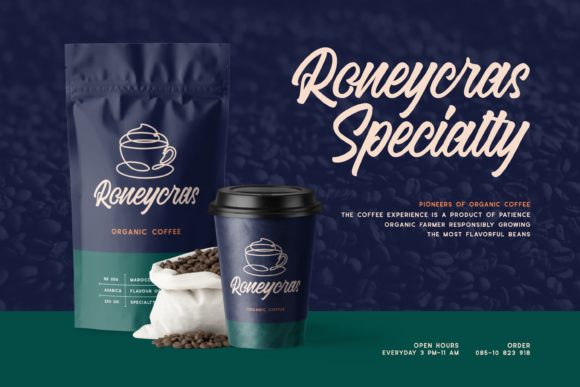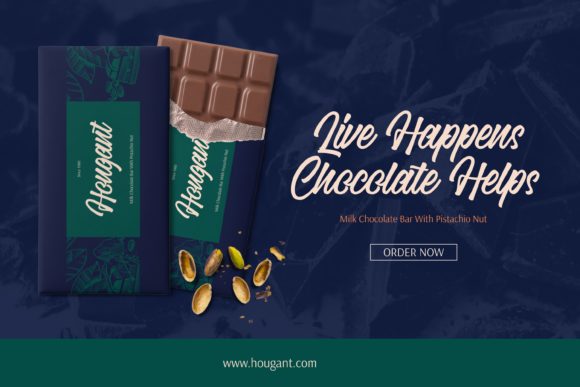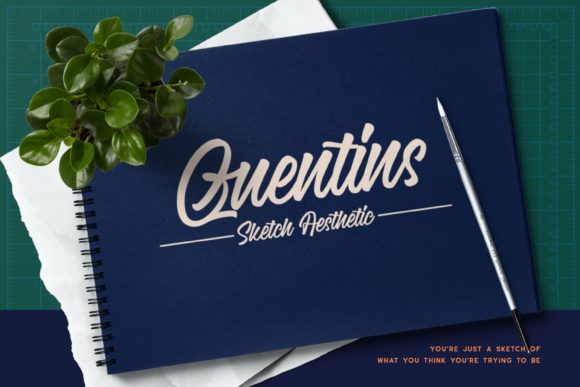
Introduction to Justoma Font
Justoma is a playful and charming display font that’s easy to remember.
Its lovely curves add a level of authenticity to any design project Use it for wide range of design occasions such as logos, apparel, photography, watermarks, quotes, blog headers, posters, weddings, invitations, stationery, branding, and much more.
Key Features of Justoma Font